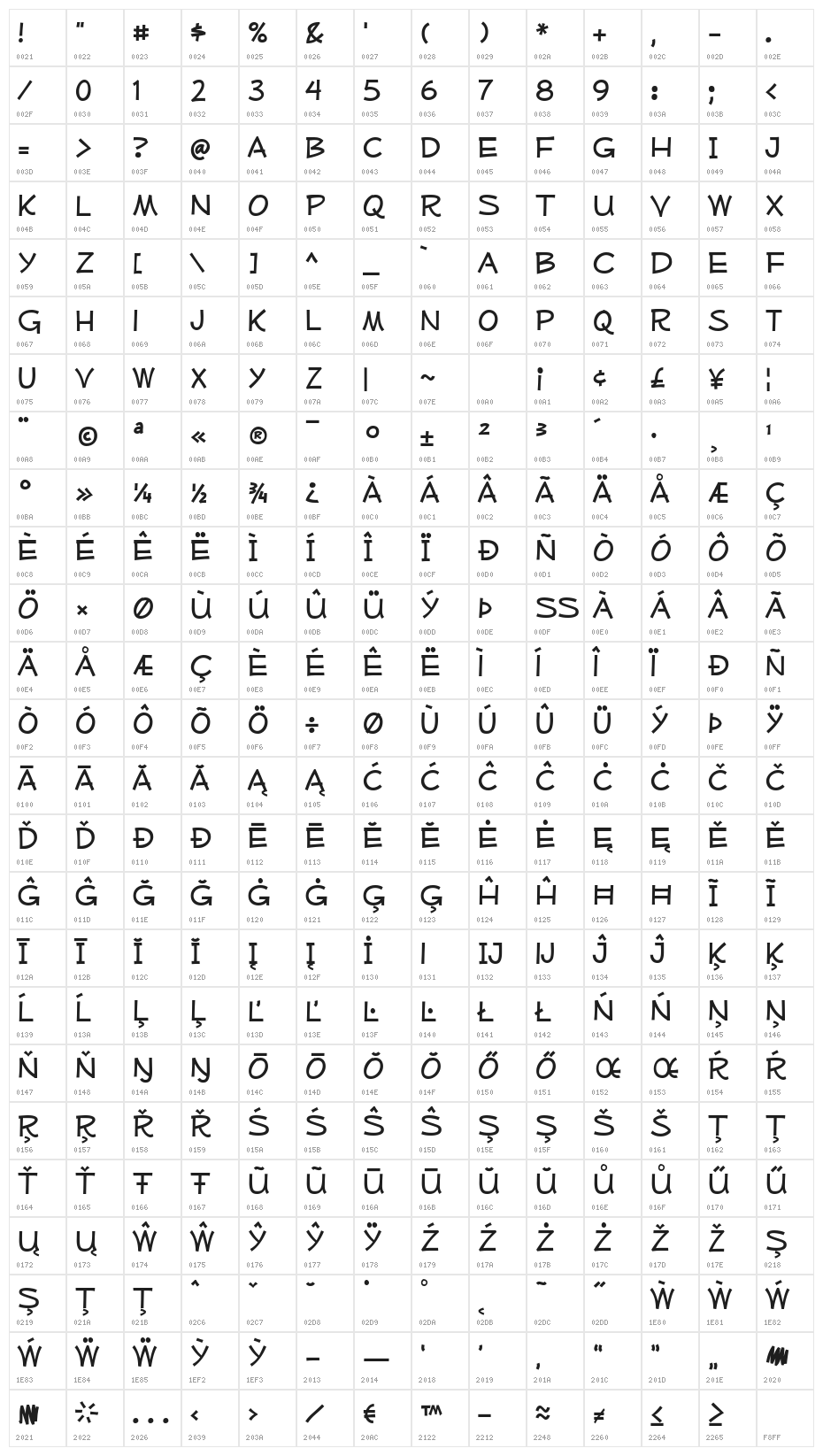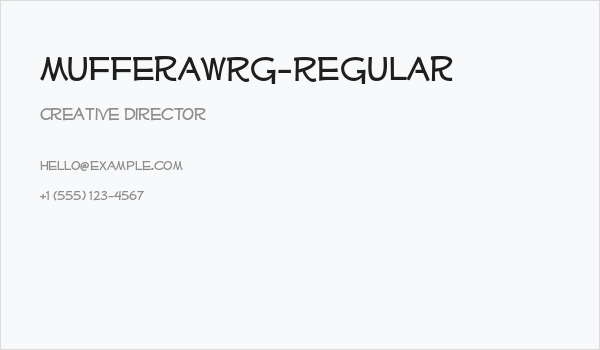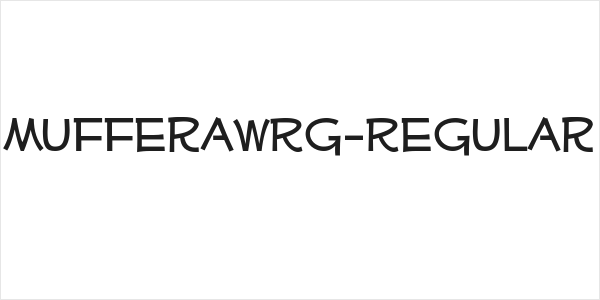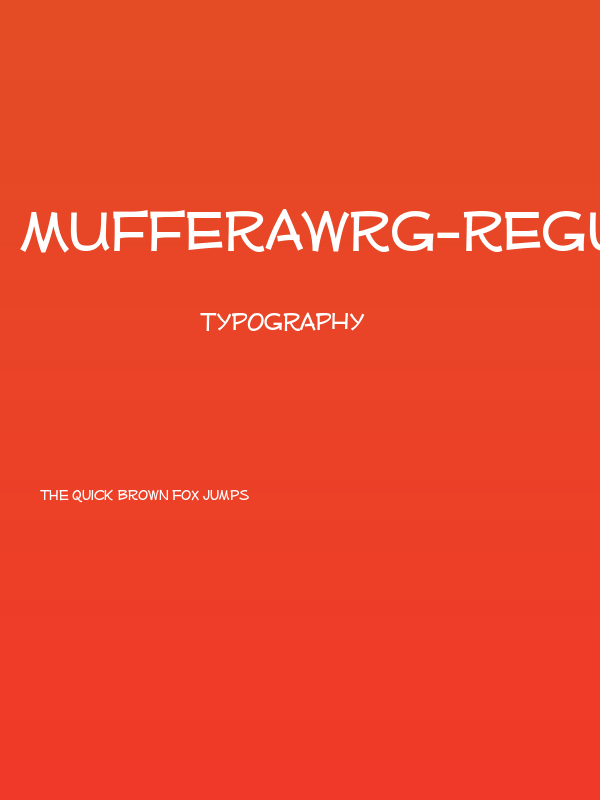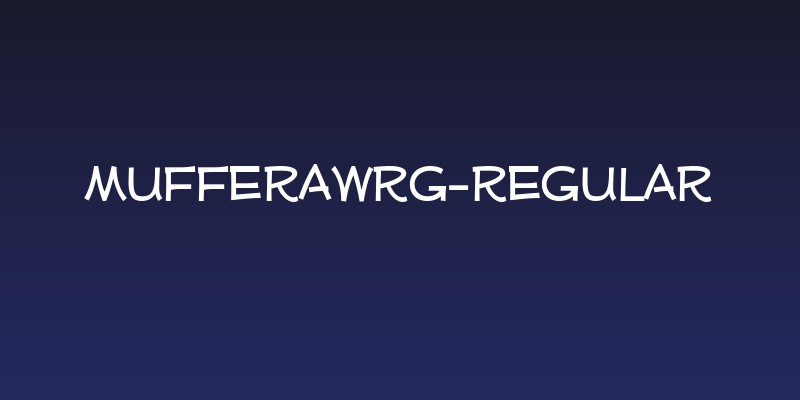
MufferawRg-Regular Font
MufferawRg-Regular Description
This font features a playful and bold design with a handwritten feel. The characters are slightly irregular, giving it a casual and friendly appearance. The uppercase letters are prominent and well-defined, while the lowercase letters maintain a consistent style. The numerals are clear and easy to read, matching the overall aesthetic of the font. Special characters are included, adding versatility for various uses. The font's unique style makes it suitable for projects that require a touch of personality and creativity.
| Proposed Projects | Ideal for children's books, casual branding, playful posters, and creative invitations. |